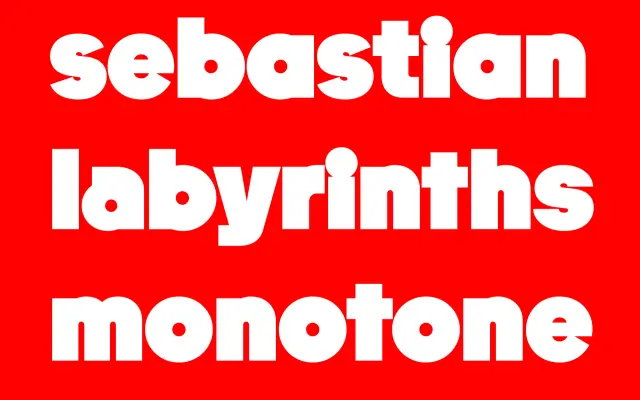
TWK Burns
WELTKERN · Nolan Paparelli & Alberto Malossi · 2023
A geometric sans in the ITC Avant Garde Gothic lineage, running ten weights from Hairline to an Ultra so heavy its strokes overlap and letters clog.
Designed by Nolan Paparelli and Alberto Malossi, Burns takes the pure circles and high x-height of the Lubalin tradition and pushes it to an extreme at the heavy end, where the Ultra weight produces overlapping strokes and dense, clogged forms suited to logotype work. The family holds ten weights and includes 14 stylistic sets with graphic alternates, giving it a range that spans fine editorial use to bold display applications. Spacing and kerning were handled by Igino Marini, with mastering by Jan Charvát.
Explicitly inspired by ITC Avant Garde Gothic, Burns is built on pure geometric shapes with a high x-height and minimal tapering, placing it firmly in the geometric sans tradition.